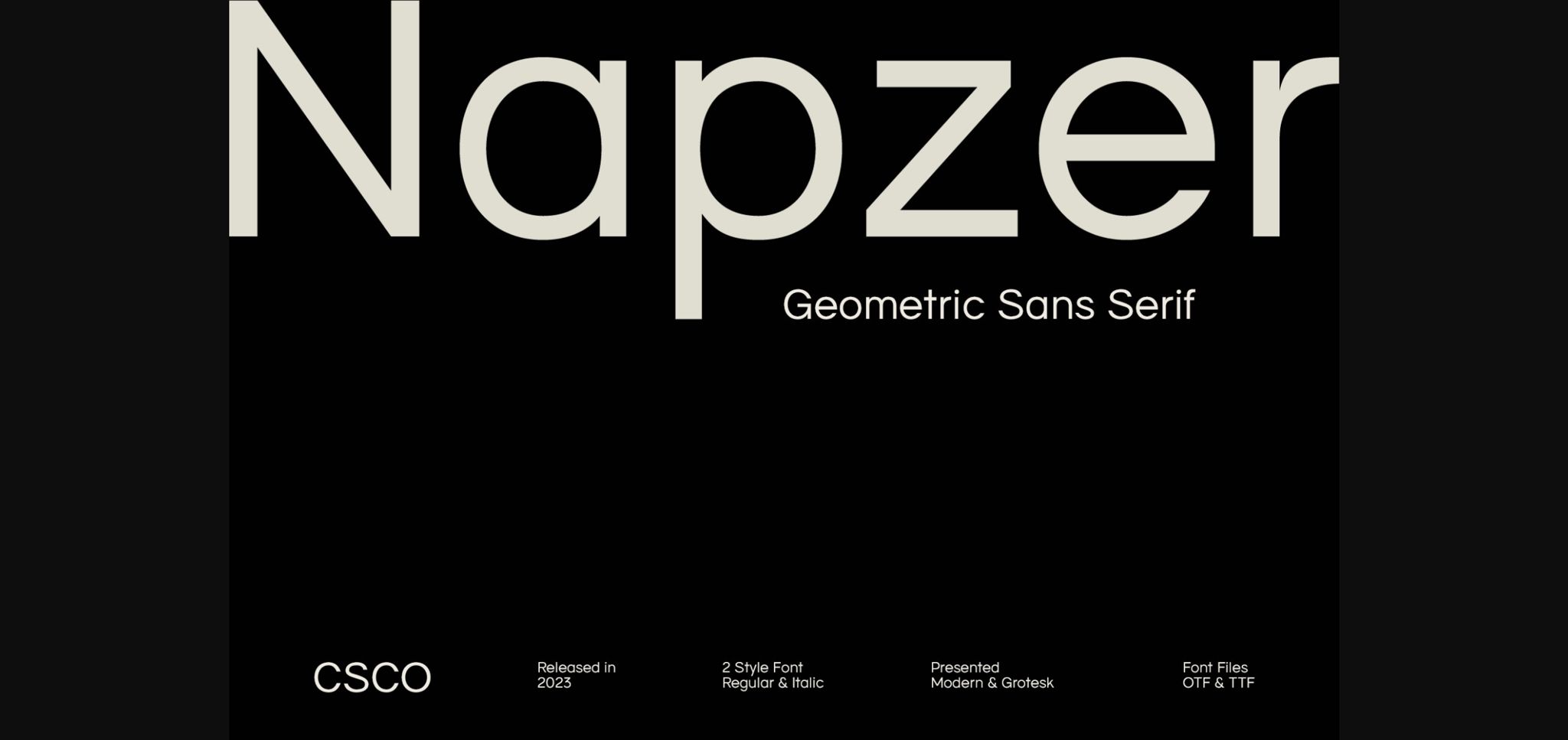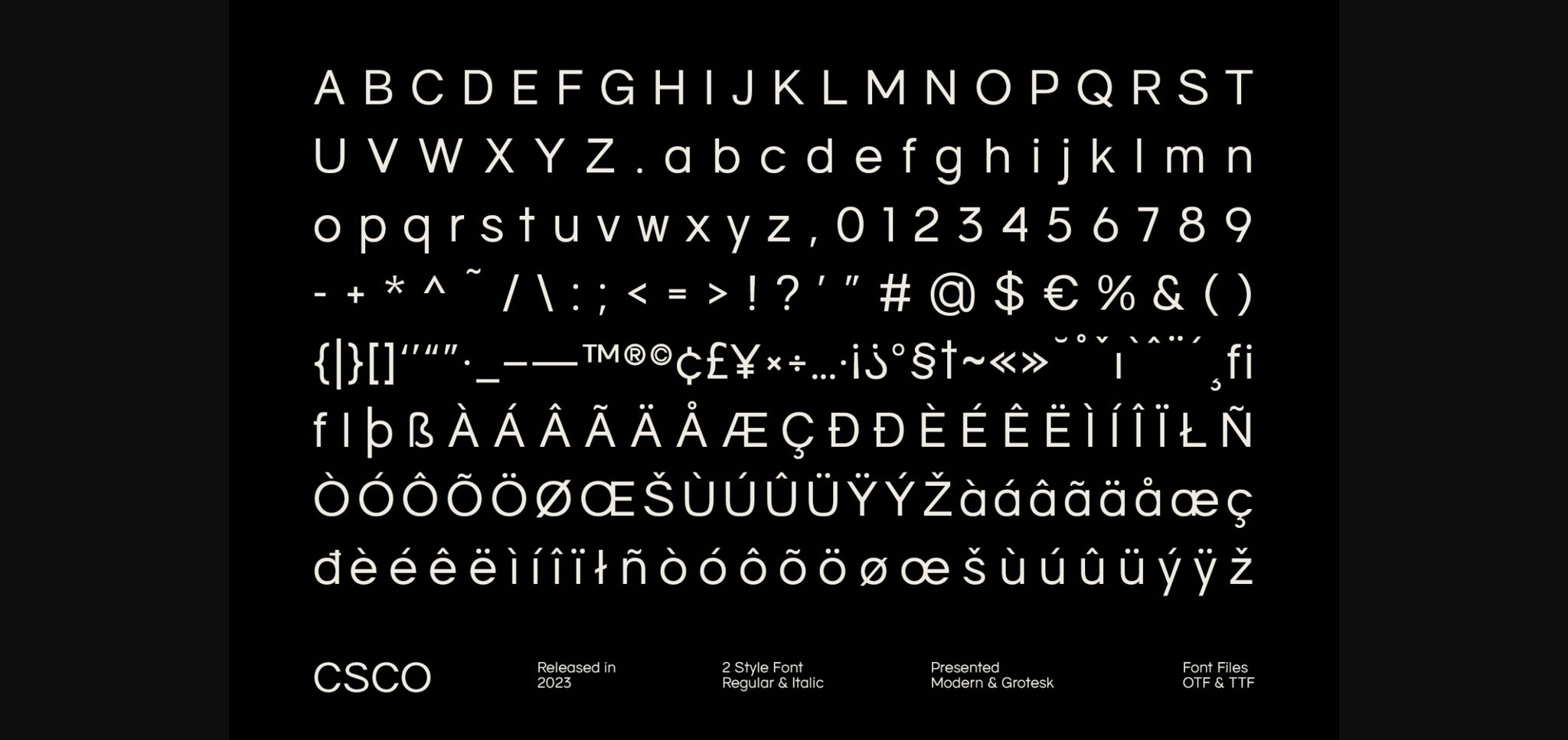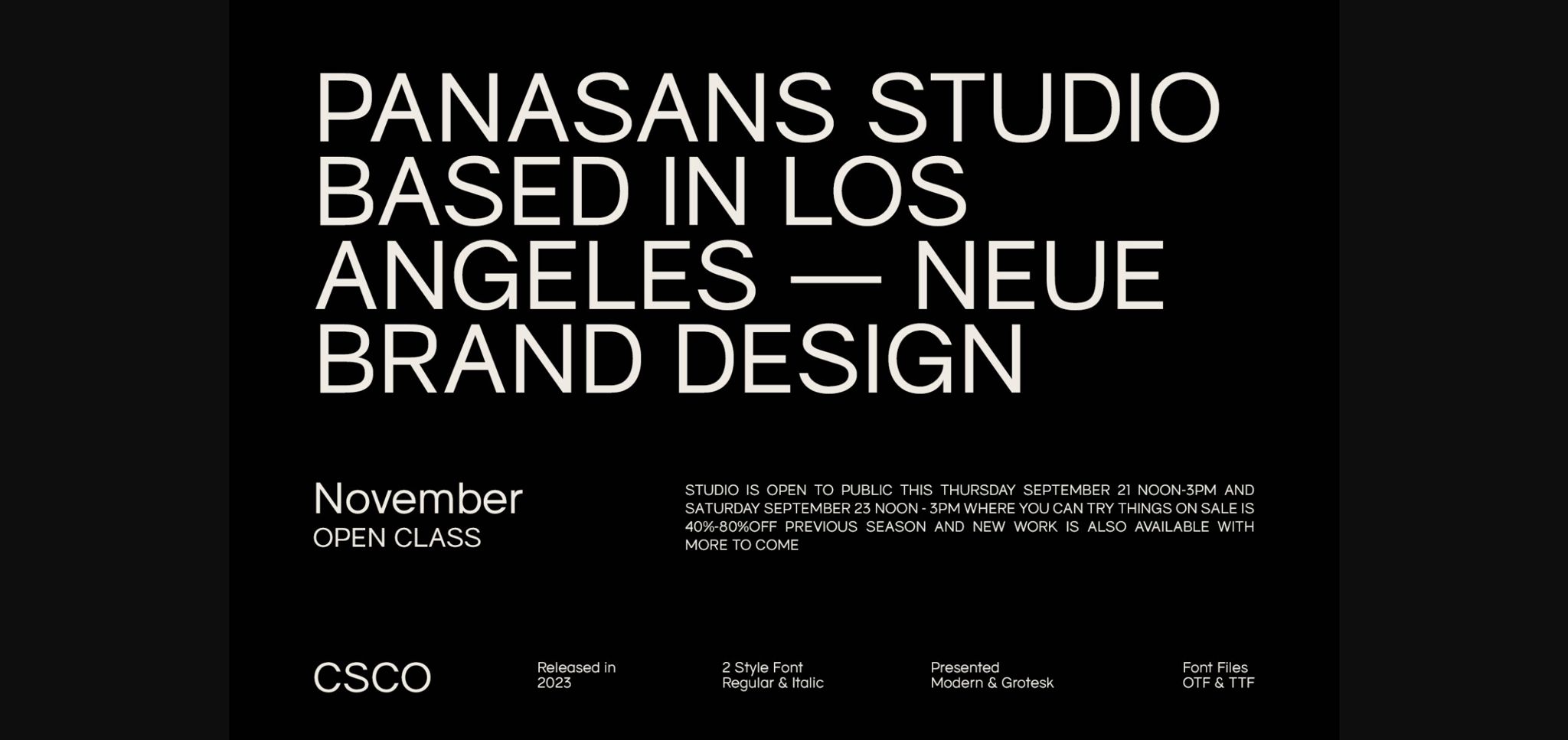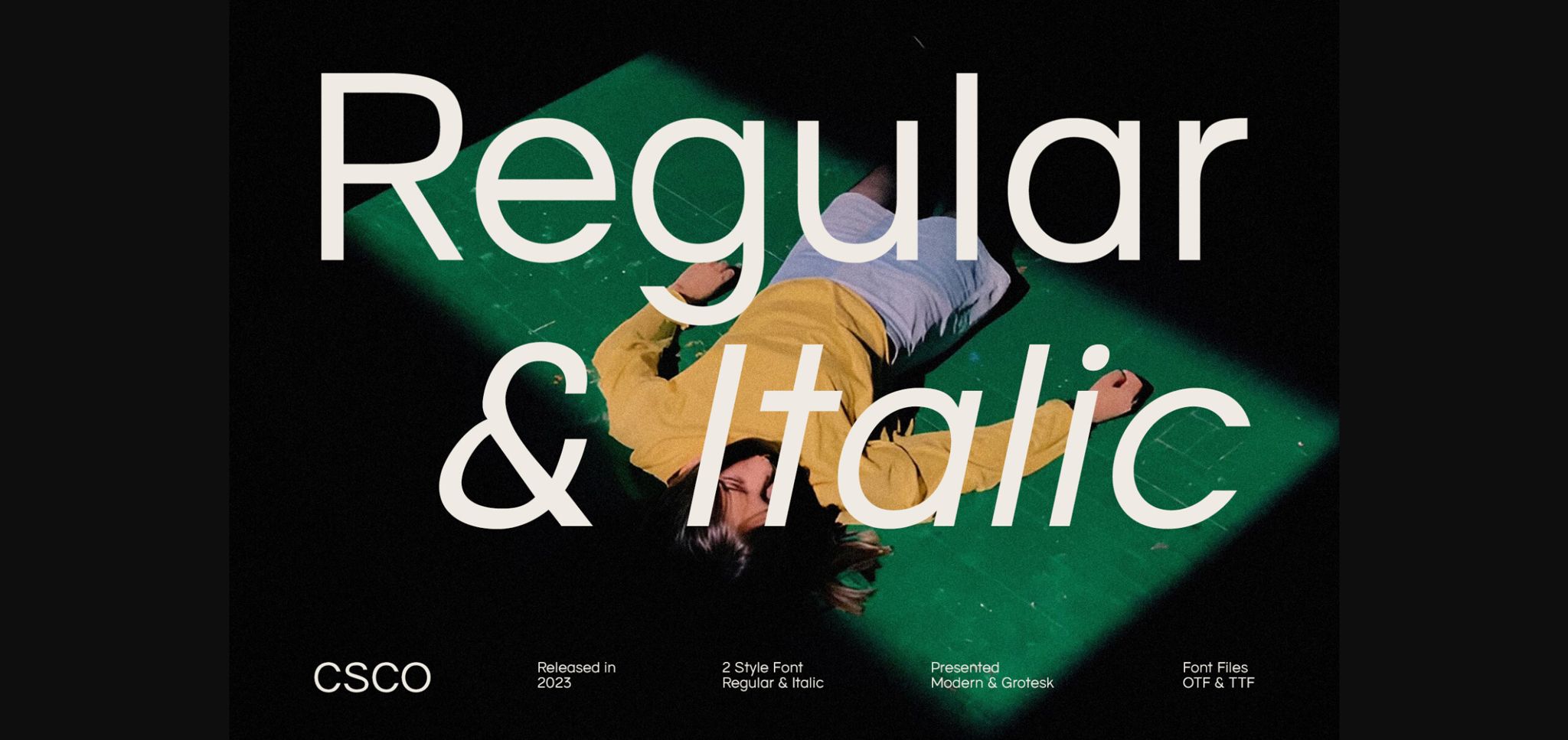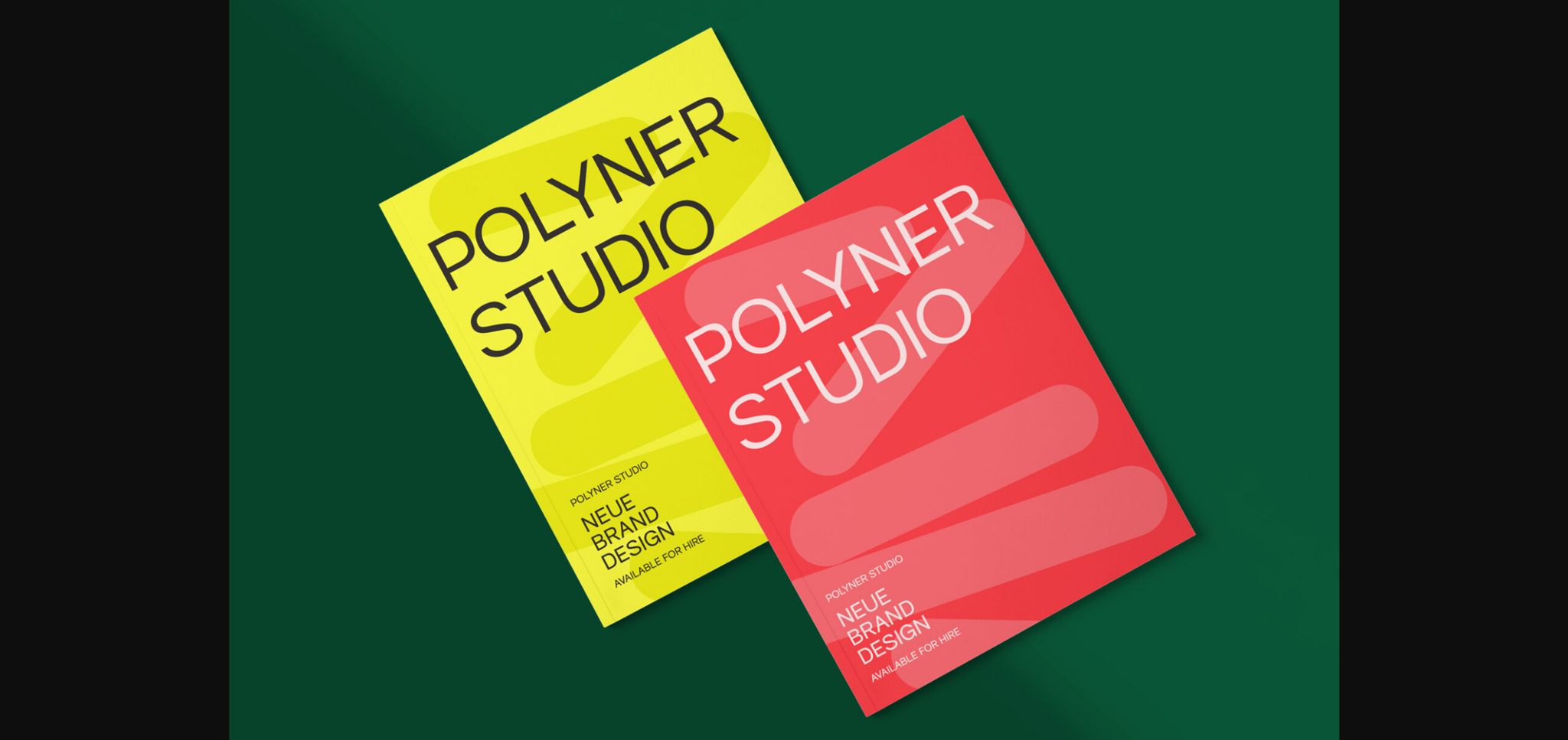
About Napzer Font
Napzer – Geometric Sans Serif is the embodiment of modern typographic design, seamlessly merging precision and simplicity into a versatile typeface. With its sharp, geometric letterforms and clean lines, Napzer is the perfect choice for projects that demand a contemporary and professional aesthetic.
This typeface ensures outstanding legibility in both digital and print media, making it suitable for a wide range of applications. Whether you’re designing a website, creating marketing materials, or establishing a corporate identity, Napzer’s clear and crisp design will enhance your content with sophistication and clarity.
Choose Napzer – Geometric Sans Serif to bring a touch of contemporary elegance to your design projects. Whether you’re working on branding, editorial design, or digital interfaces, Napzer offers a timeless and professional typographic experience.
This typeface ensures outstanding legibility in both digital and print media, making it suitable for a wide range of applications. Whether you’re designing a website, creating marketing materials, or establishing a corporate identity, Napzer’s clear and crisp design will enhance your content with sophistication and clarity.
Choose Napzer – Geometric Sans Serif to bring a touch of contemporary elegance to your design projects. Whether you’re working on branding, editorial design, or digital interfaces, Napzer offers a timeless and professional typographic experience.